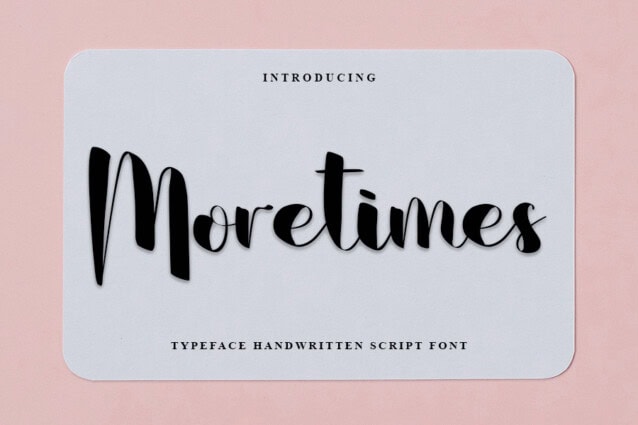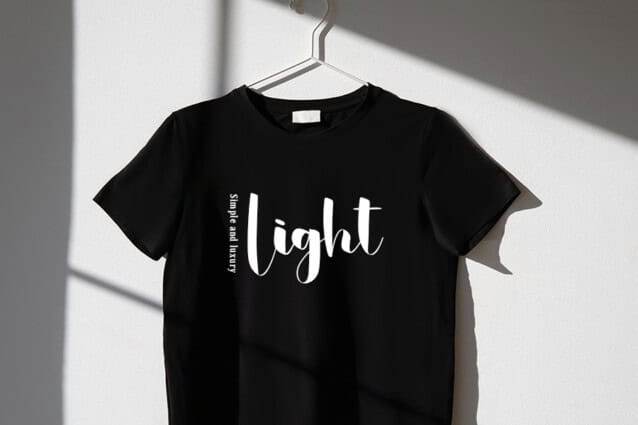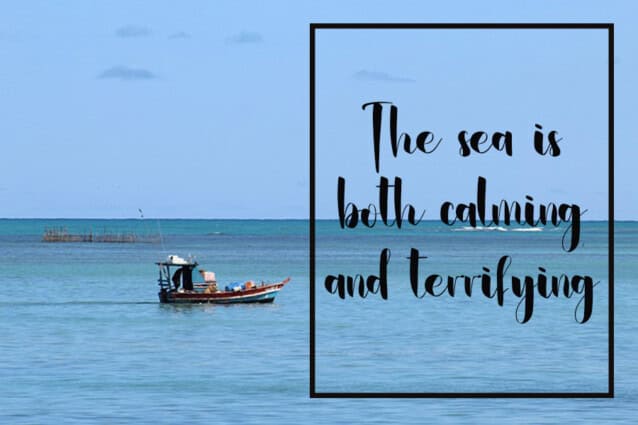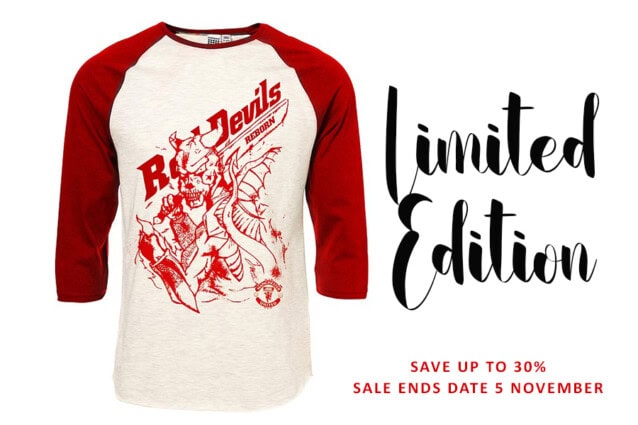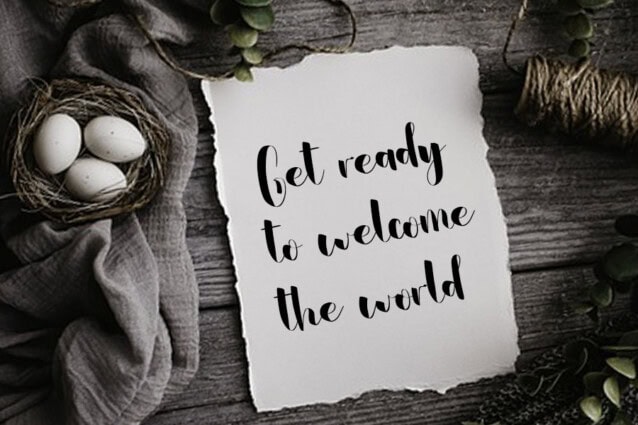
Moretimes Script Font
Moretimes Script Font is a stylish handwritten font with a contemporary atmosphere and impeccable form, inspired by a timeless classic calligraphy. Not too thin and not too thick, balanced and varied, this font was designed to enhance the beauty of your projects.